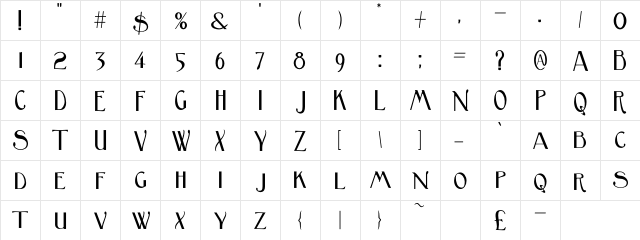
Birmingham Sans Serif Regular
Design Context for Birmingham Sans Serif Typeface
Birmingham Sans Serif brings classic typographic sensibility to the table — its serifs and measured letterforms reflect centuries of print heritage.
Pro Tip: Use Birmingham Sans Serif for editorial body copy and considered headline work. Pair with a neutral sans for UI elements or captions to create a classic hierarchy.